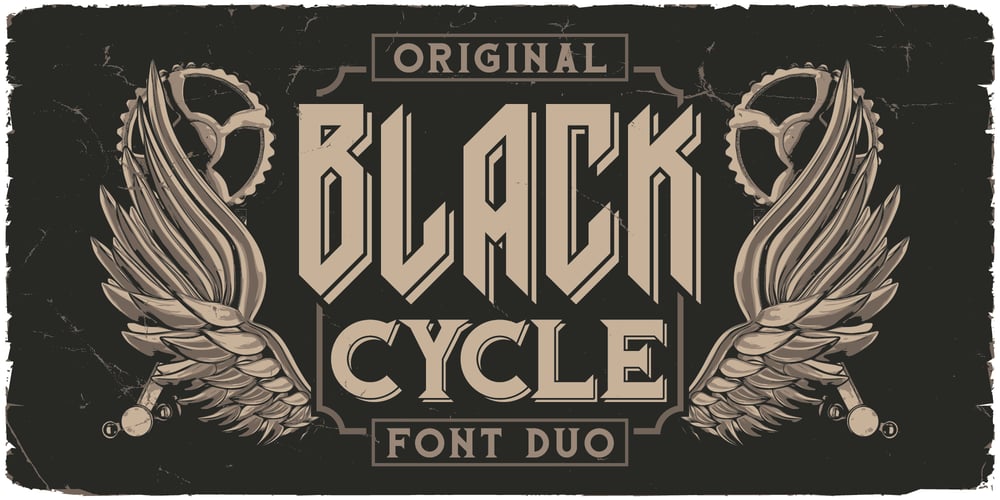
Black Cycle 2
Black Cycle 2 font
Black Cycle 2 Font Family was designed by Oleg Voznyy and published by Vozzy. Black Cycle 2 contains 8 styles and family package options. Introducing vintage label font duo named Black Cycle. These two fonts has an additional characters and multilungual support (check out all available characters on previews). Both of font familes has four styles: Clean, Clean Shadow, Aged and Aged Shadow. This font will look good on any vintage styled designs like a poster, T-shirt, label, logo, etc.